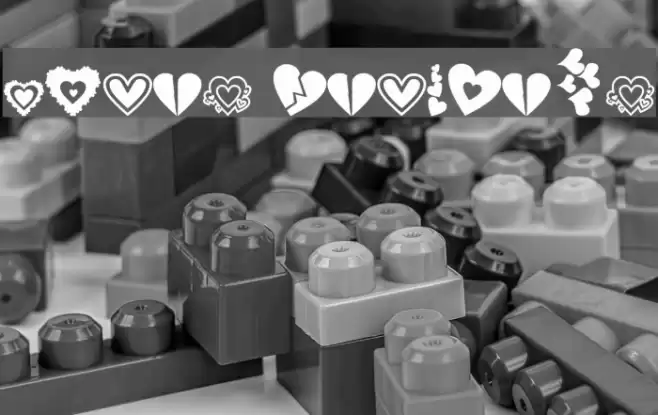
Loves DevineUS Font
Loves DevineUS Description
A decorative dingbat set featuring a variety of heart-themed symbols, including solid, outlined, broken, and patterned hearts, as well as heart clusters and playful accents. The glyphs are bold, high-contrast, and designed for visual impact.
A playful, heart-themed decorative dingbat set from Uncategorized fonts.
- Proposed Projects: Valentine's Day cards, romantic event invitations, scrapbooking, decorative borders, playful branding, social media graphics.
- Overall Style: Decorative, Playful, Thematic
- Use Case: Icons, Borders, Decorative elements